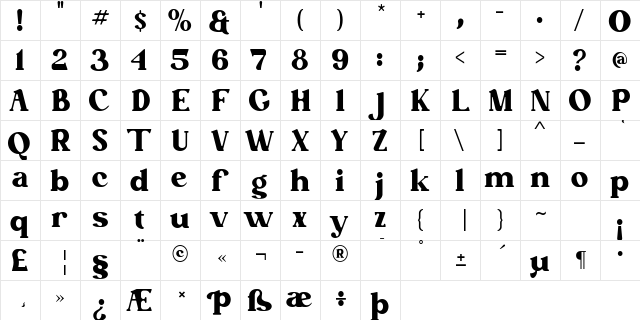
Betofin free for personal use Regular
Design Context for Betofin free for personal use Typeface
Betofin free for personal use is a composed and adaptable typeface that performs quietly and consistently across a wide range of design contexts.
Pro Tip: Use Betofin free for personal use in both headline and body roles to test its range before committing to a single application.